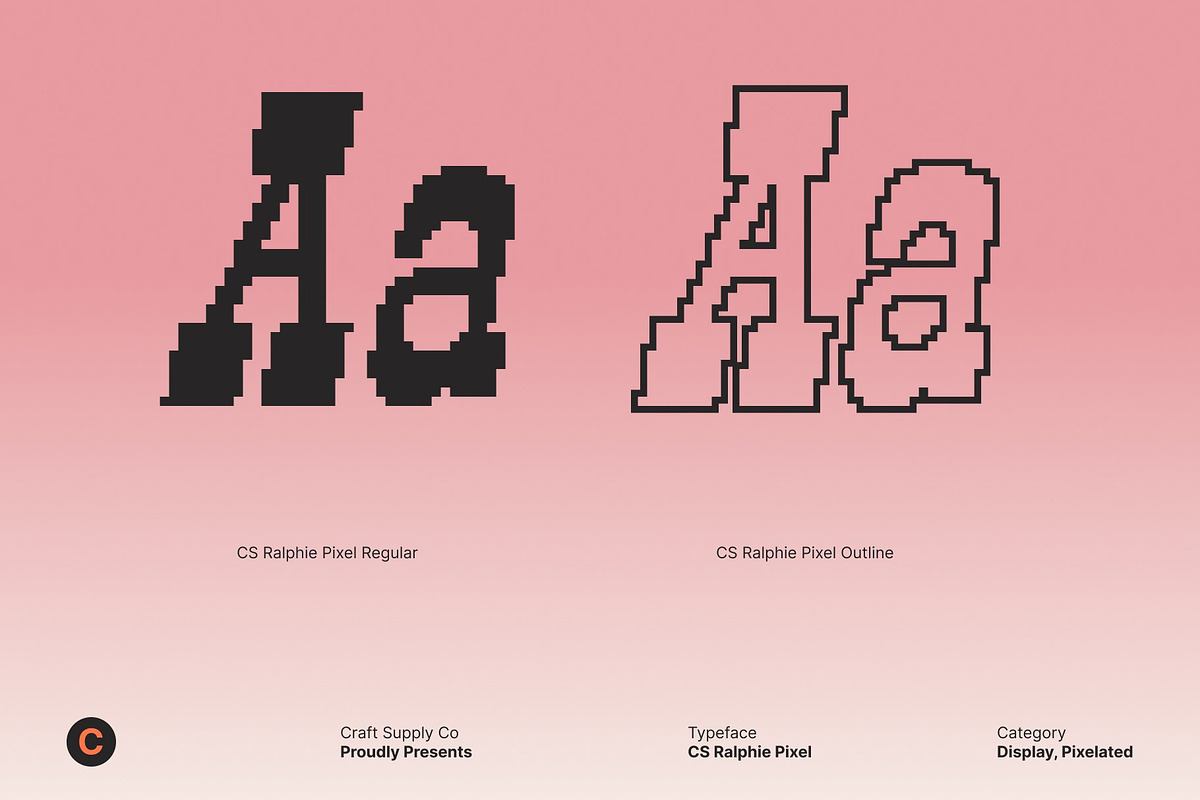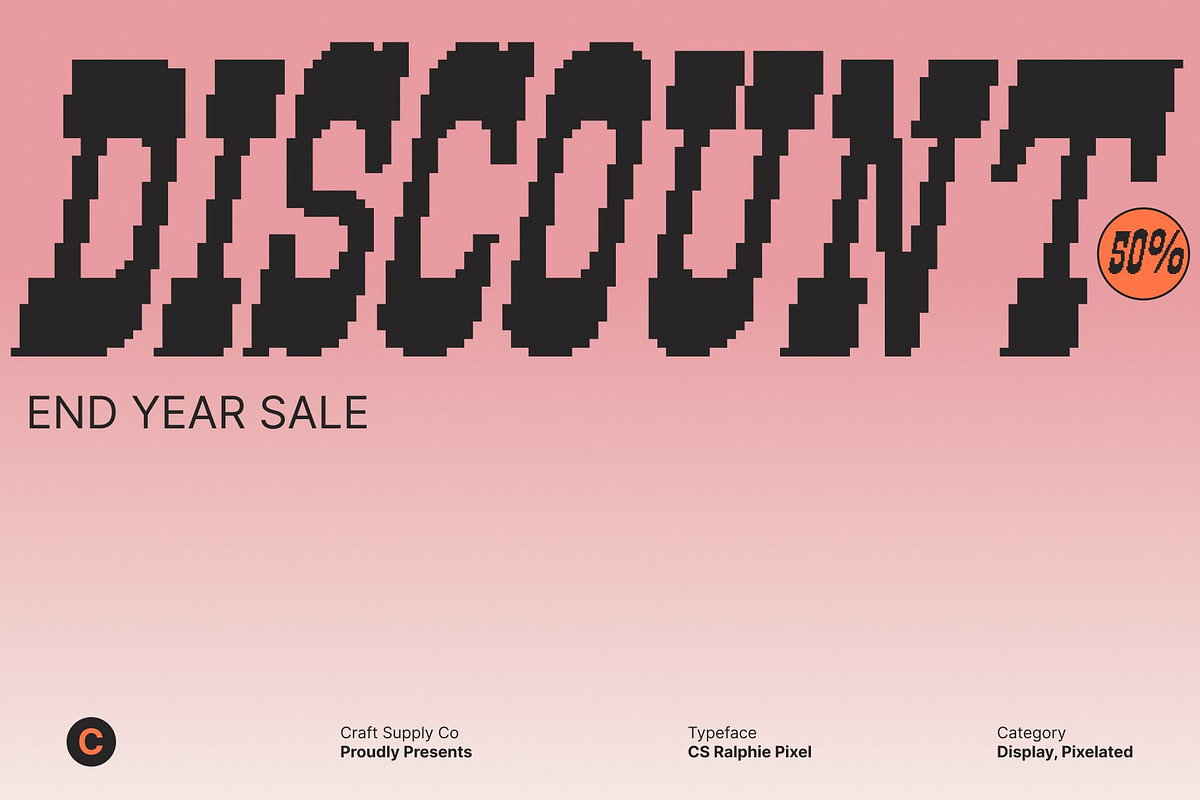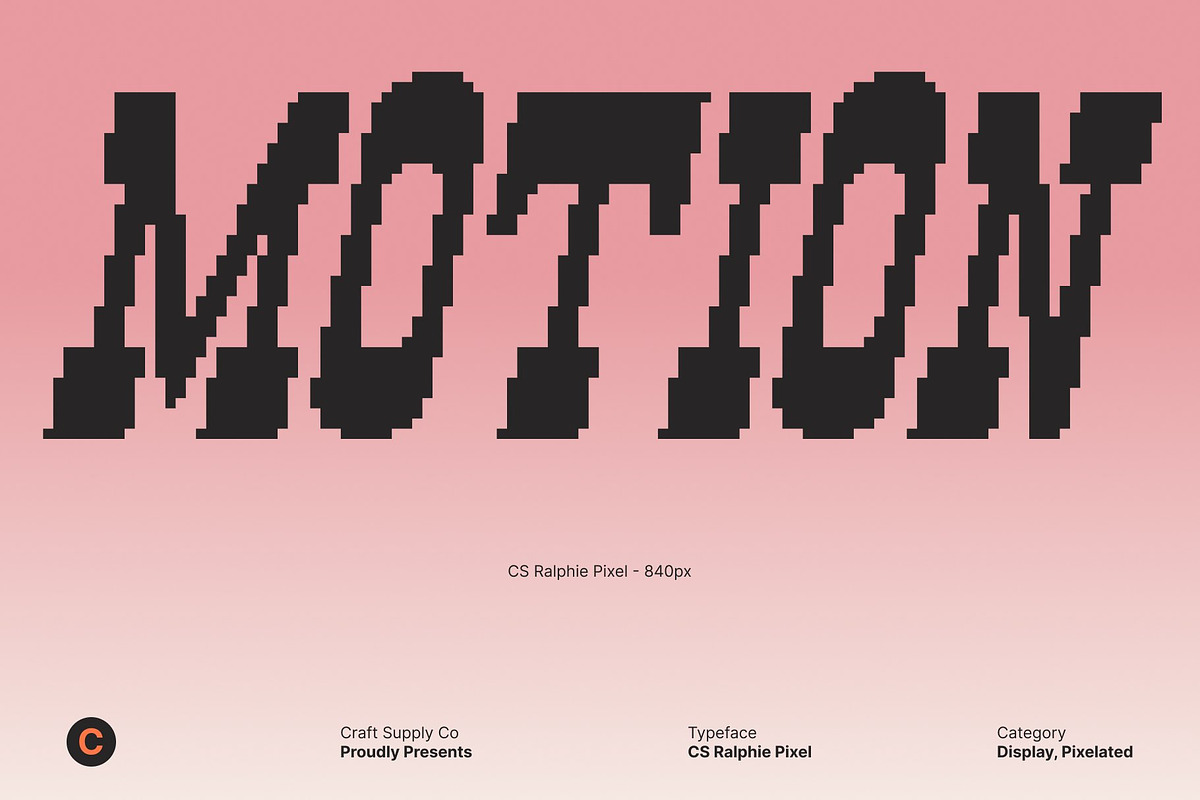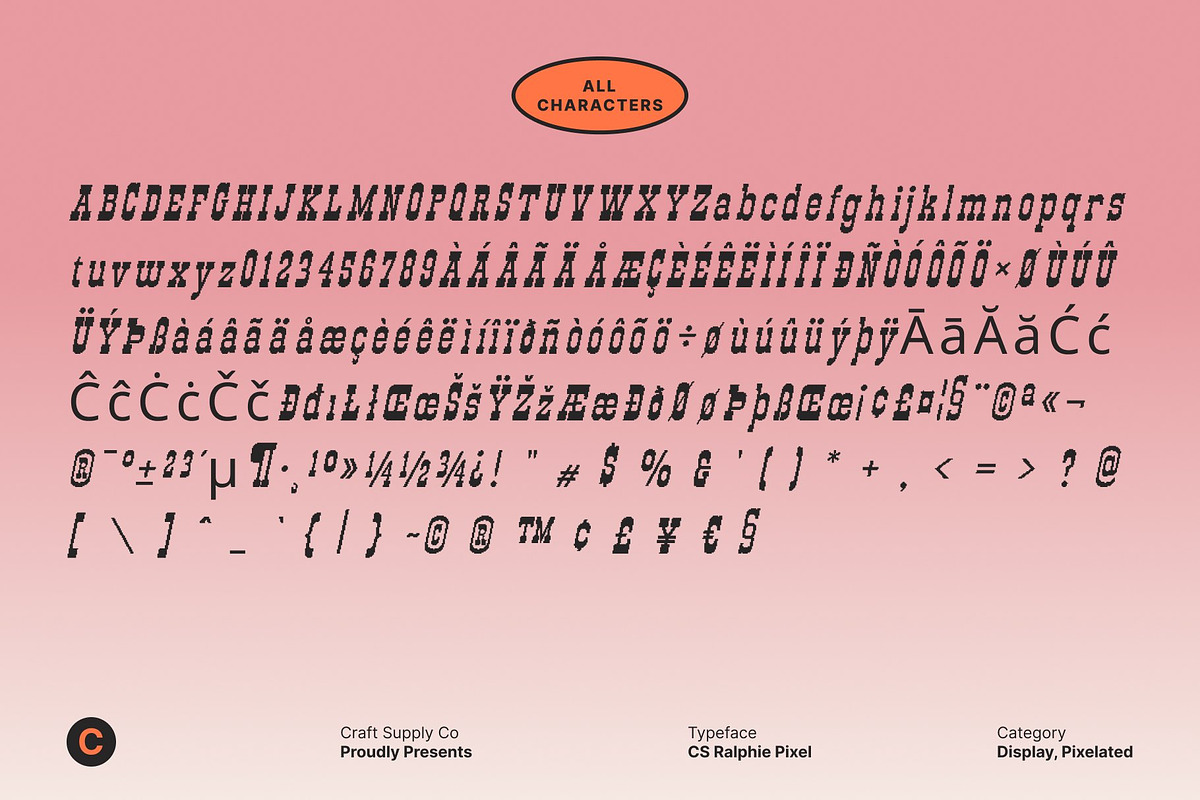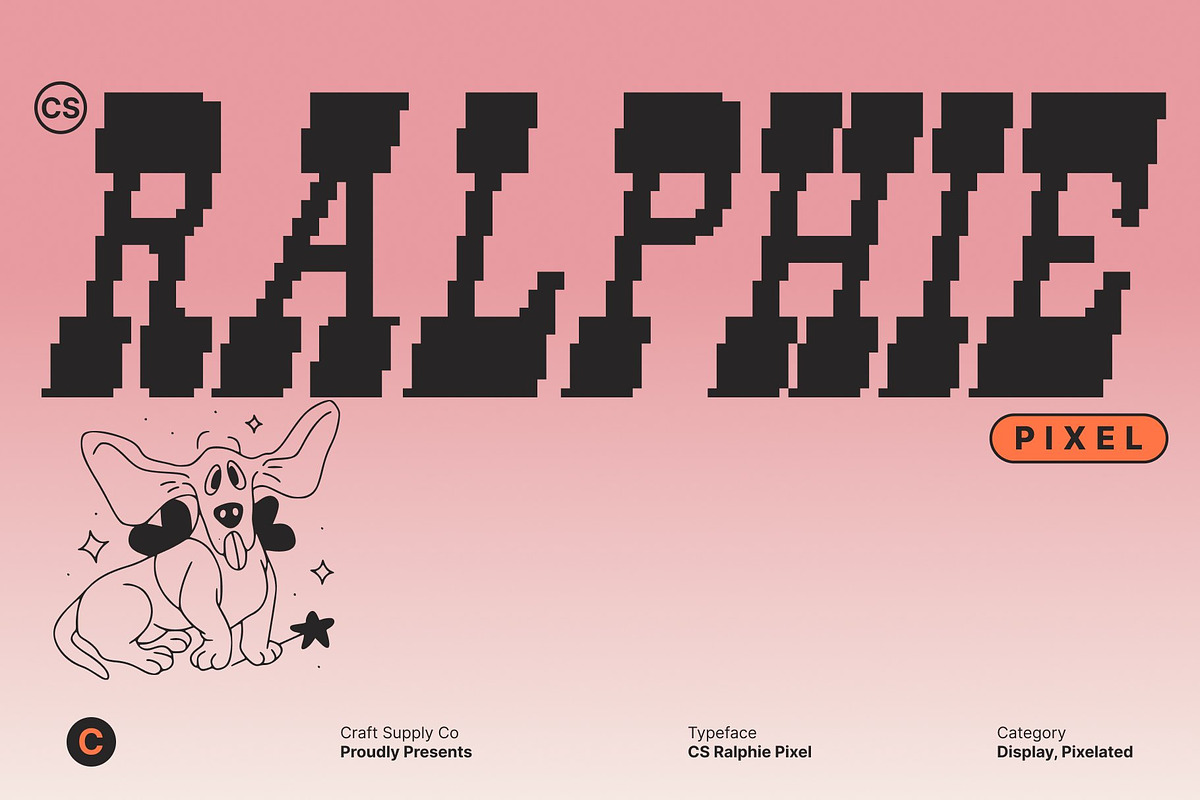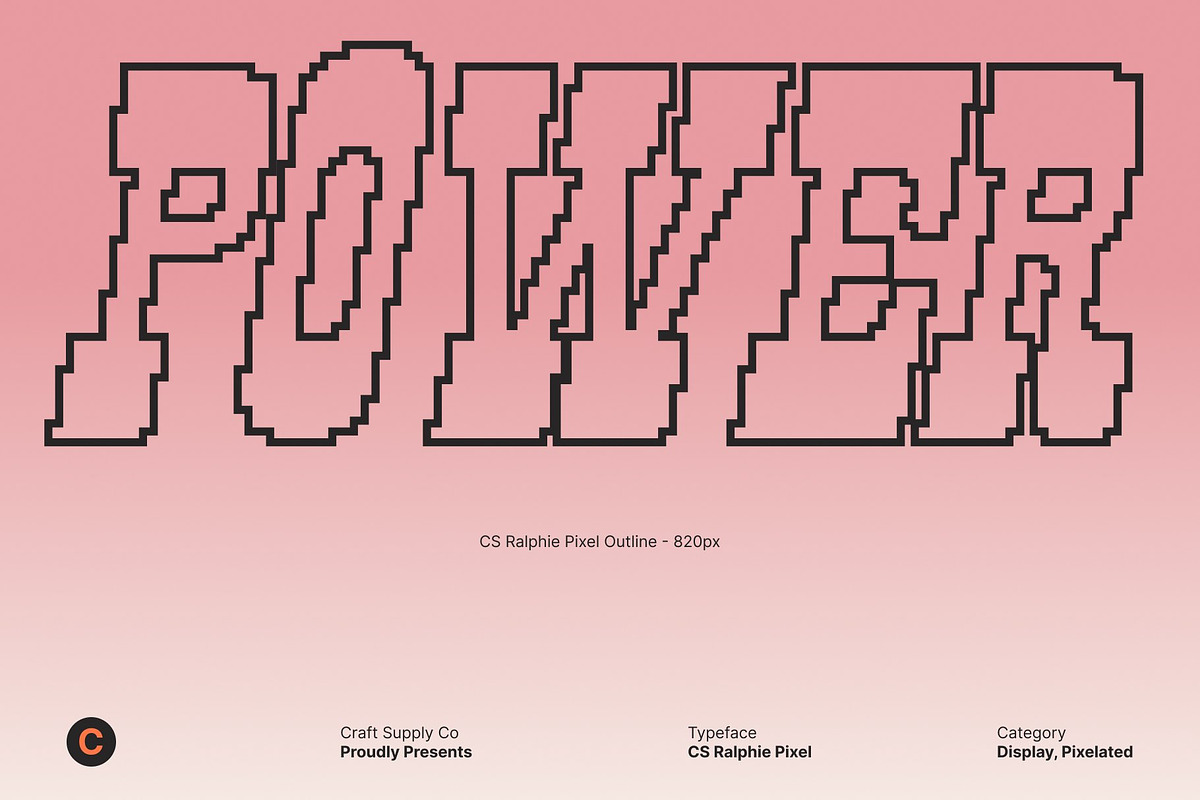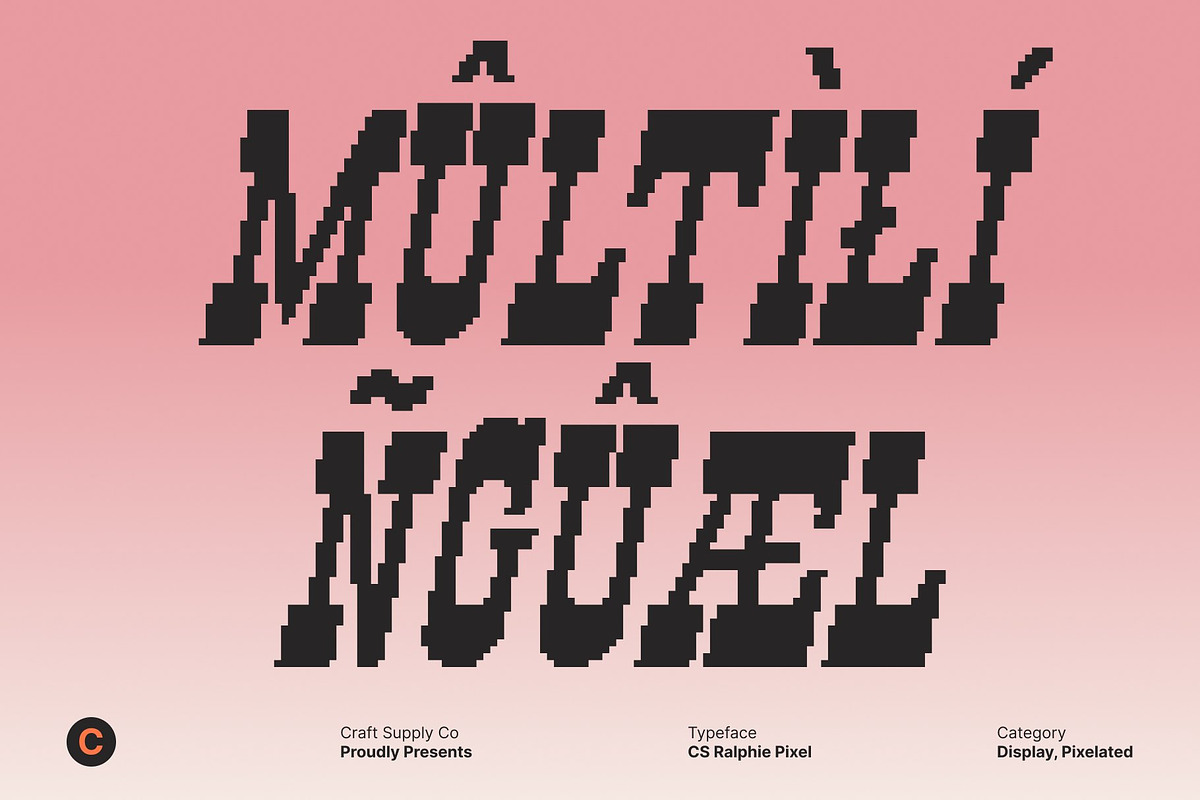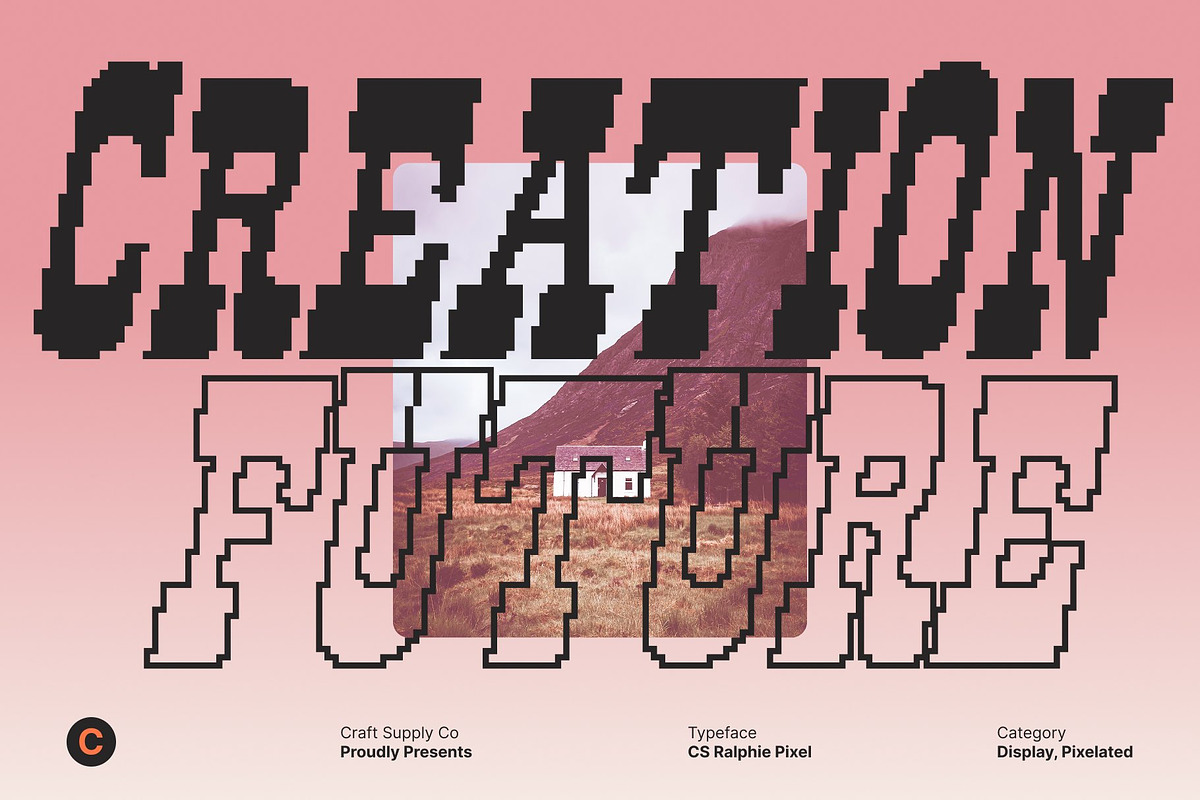
CS Ralphie Pixel
CS Ralphie Pixel – Western Display Font with Slab Serif and Reverse Contrast
Old Western Spirit Meets Pixel Character This is a striking display font that channels the raw spirit of the old Western era, inspired by vintage frontier signage, saloon posters, and rugged hand-painted lettering reimagined through a distinctive pixel style. This digital, block-based construction adds a nostalgic tech aesthetic, evoking early computer graphics, arcade screens, and retro displays while preserving a bold western identity.
Reverse Contrast with Pixel Precision The reverse contrast design creates a dynamic rhythm by shifting visual weight in unexpected places. Combined with crisp pixel edges, this contrast produces a bold, eye-catching silhouette that feels both dramatic and controlled. The result is a font that stands out instantly on screens, enhancing readability while injecting personality and visual impact into headlines and statement typography.
Slab Serifs with Rugged, Digital Authority The strong slab serifs reinforce the font’s western roots while gaining a unique mechanical edge through pixel styling. Reminiscent of wooden signboards translated into digital blocks, these sturdy forms convey durability, strength, and authority bridging nostalgic craftsmanship with retro technology aesthetics.
Perfect for Digital, Retro-Tech, and Western Branding Designed for maximum impact in digital environments, this font excels in posters, branding, logos, packaging, music artwork, event promotions, games, and retro-inspired projects. Its pixel style makes it especially effective for digital screens, old-school technology themes, and nostalgic visuals, delivering authentic western flair with bold, unforgettable pixel energy.
- CS Ralphie Pixel Regular
- CS Ralphie Pixel Outline